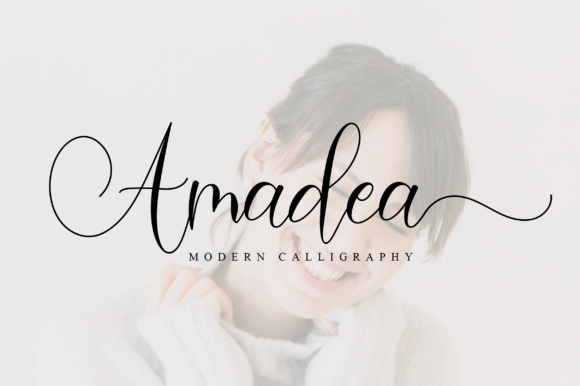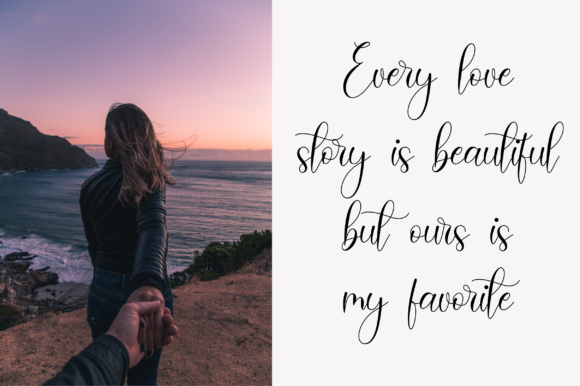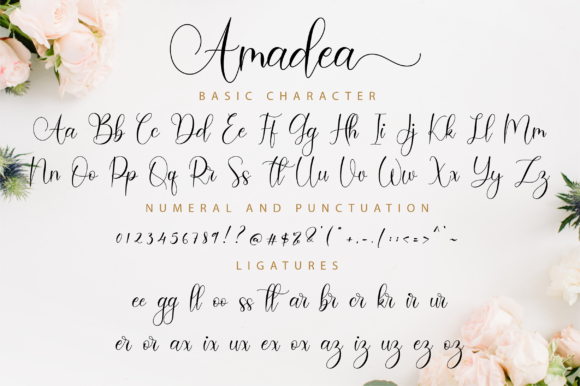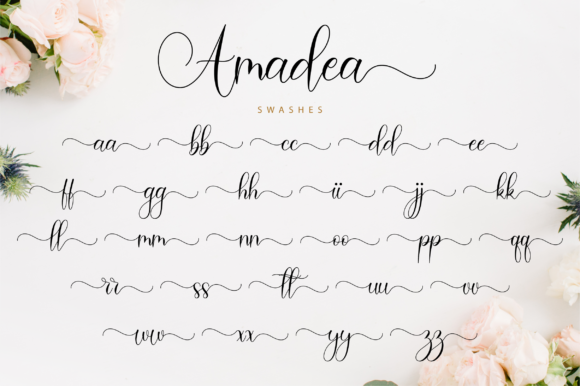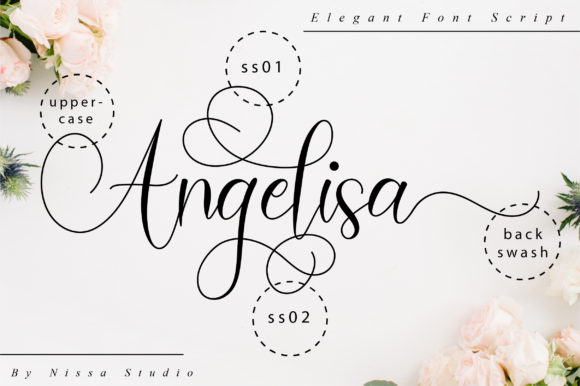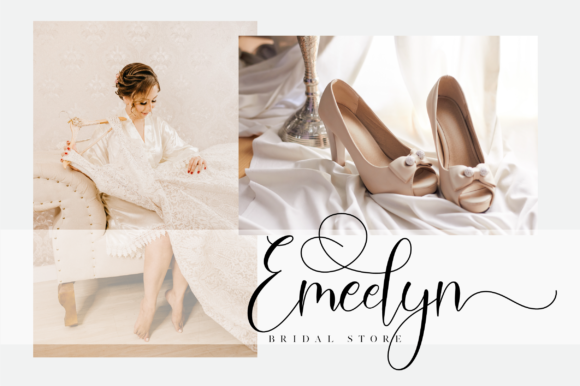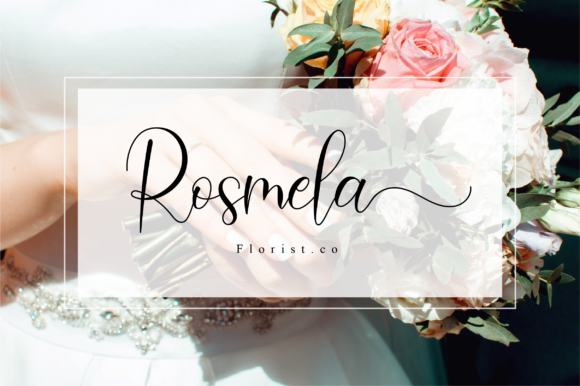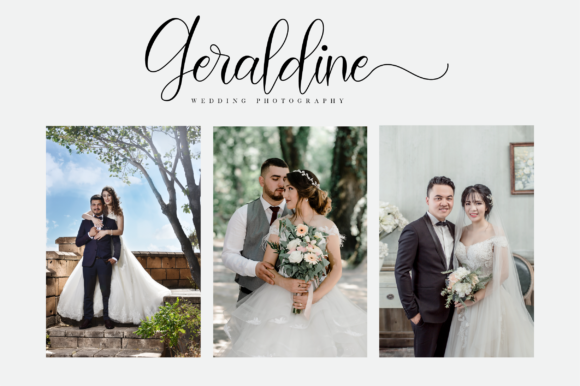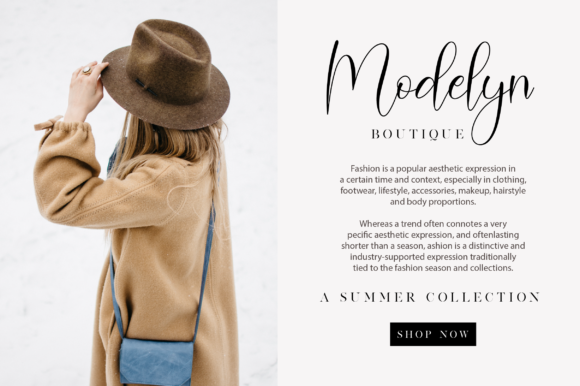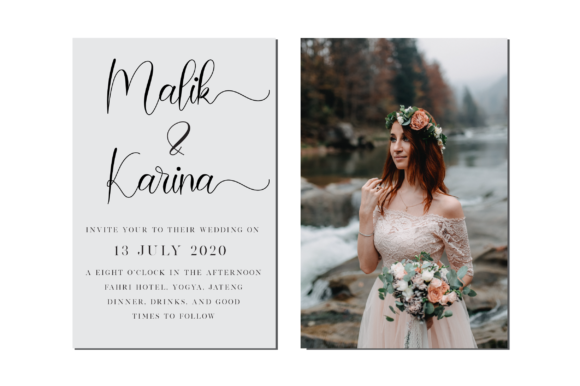
Amadea Font
About Amadea Font
Amadea is a playful and cute calligraphy font. The dynamically rounded characters make it the perfect font for creating stunning crafts. Amadea comes packed with PUA encoded swashes, which will allow you to add a decorative touch within seconds. Get inspired by its authentic feel and use it to create gorgeous wedding invitations, beautiful stationary art, eye-catching social media posts, and cute greeting cards.